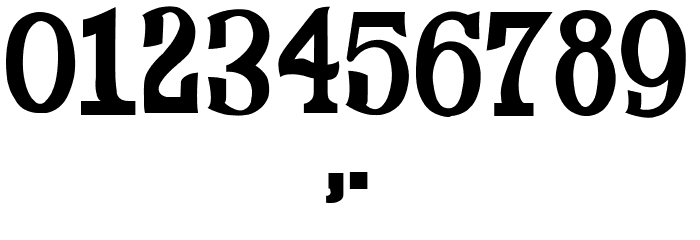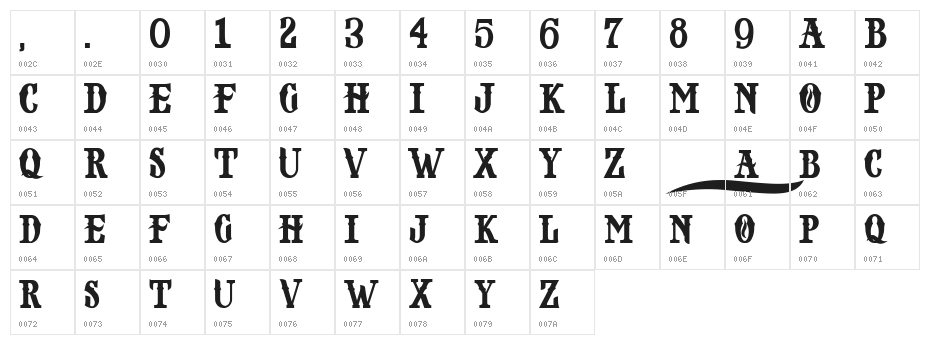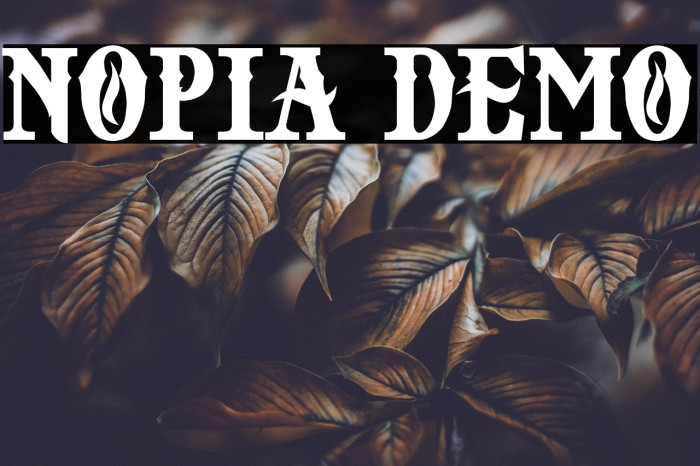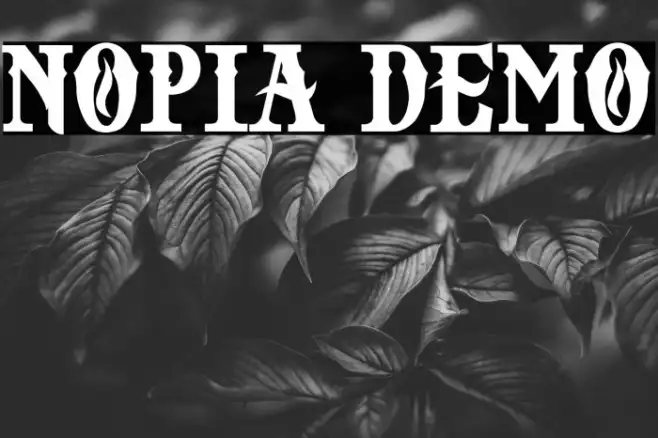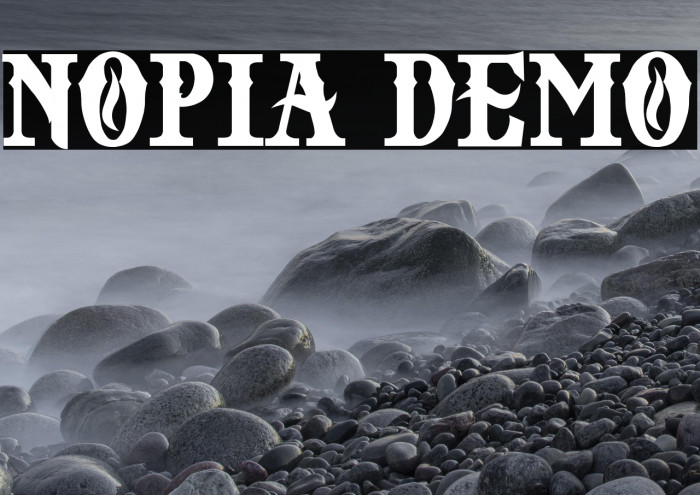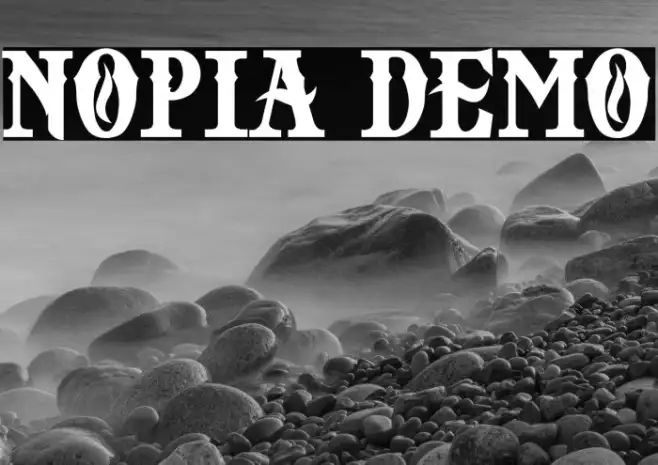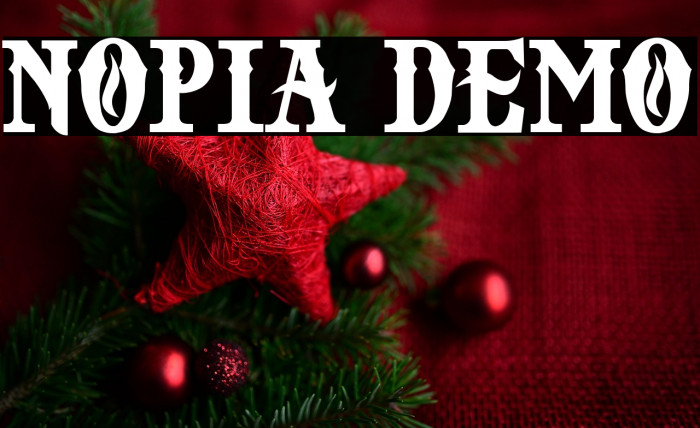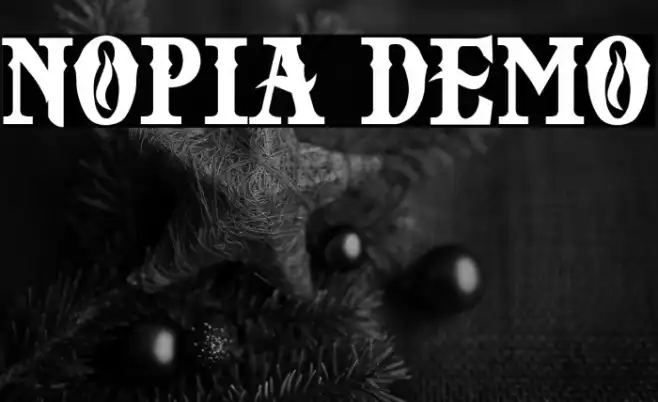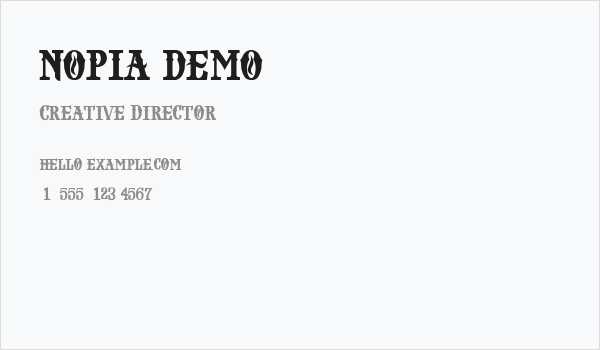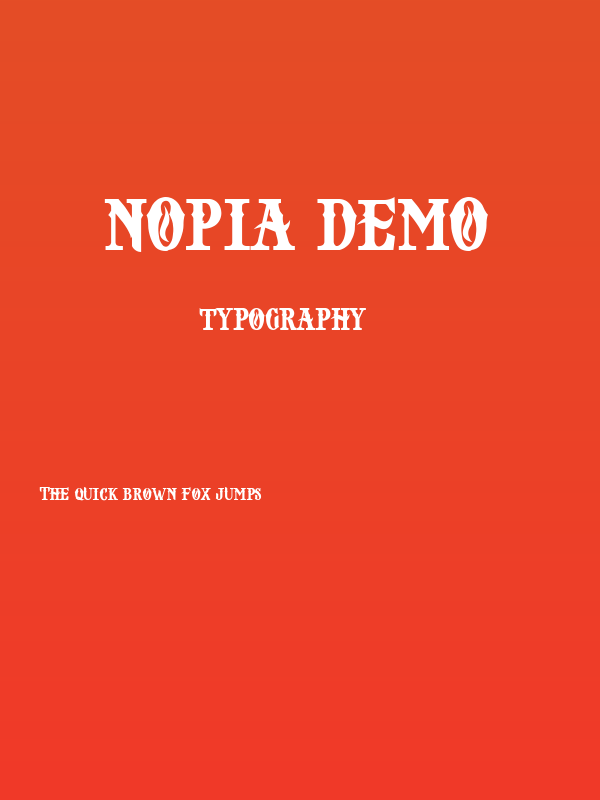
NOPIA DEMO Font
This font features a bold and striking design with a strong presence. The characters are crafted with a high contrast between thick and thin strokes, giving it a dramatic and impactful appearance. The serifs are prominent and angular, adding to the font's distinctive style. The overall design is reminiscent of vintage typefaces, yet it maintains a modern edge with its clean lines and sharp angles. The uppercase letters are particularly commanding, making them ideal for attention-grabbing headlines or titles. The numerals and punctuation marks are equally bold, ensuring consistency across all characters.
| Proposed Projects | Ideal for use in branding, posters, book covers, and any project requiring a strong, impactful typeface. |